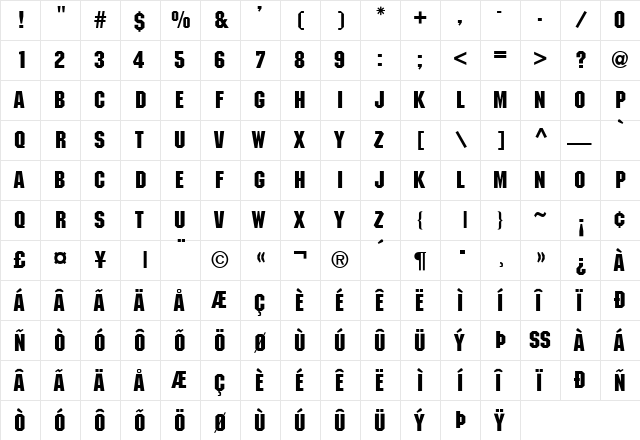
Motor Regular Font Preview
Motor Regular
Motor Regular Font Details
Design Context for Motor Typeface
Motor takes a measured approach to typography — its balanced proportions and neutral character make it a reliable workhorse for both digital and print work.